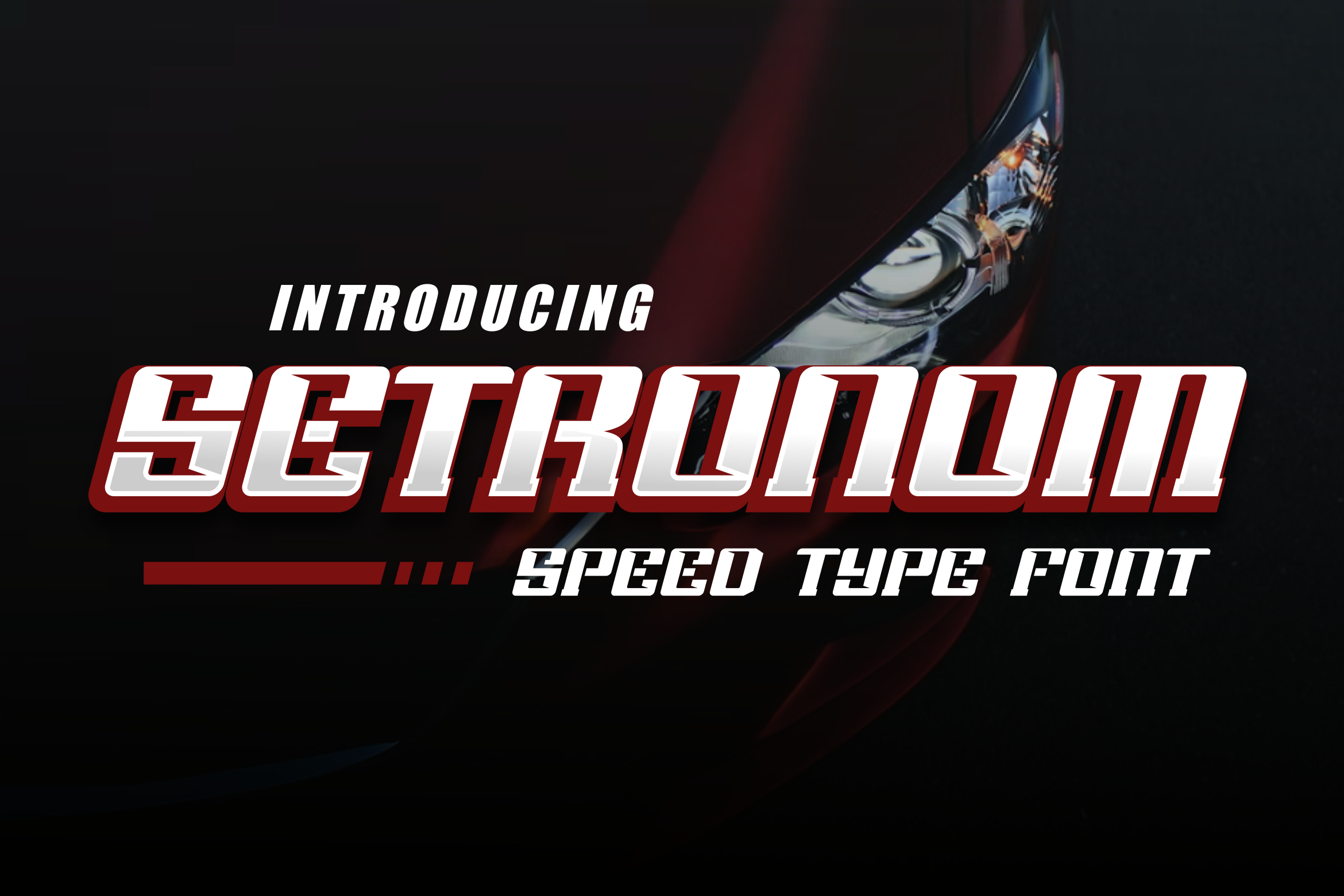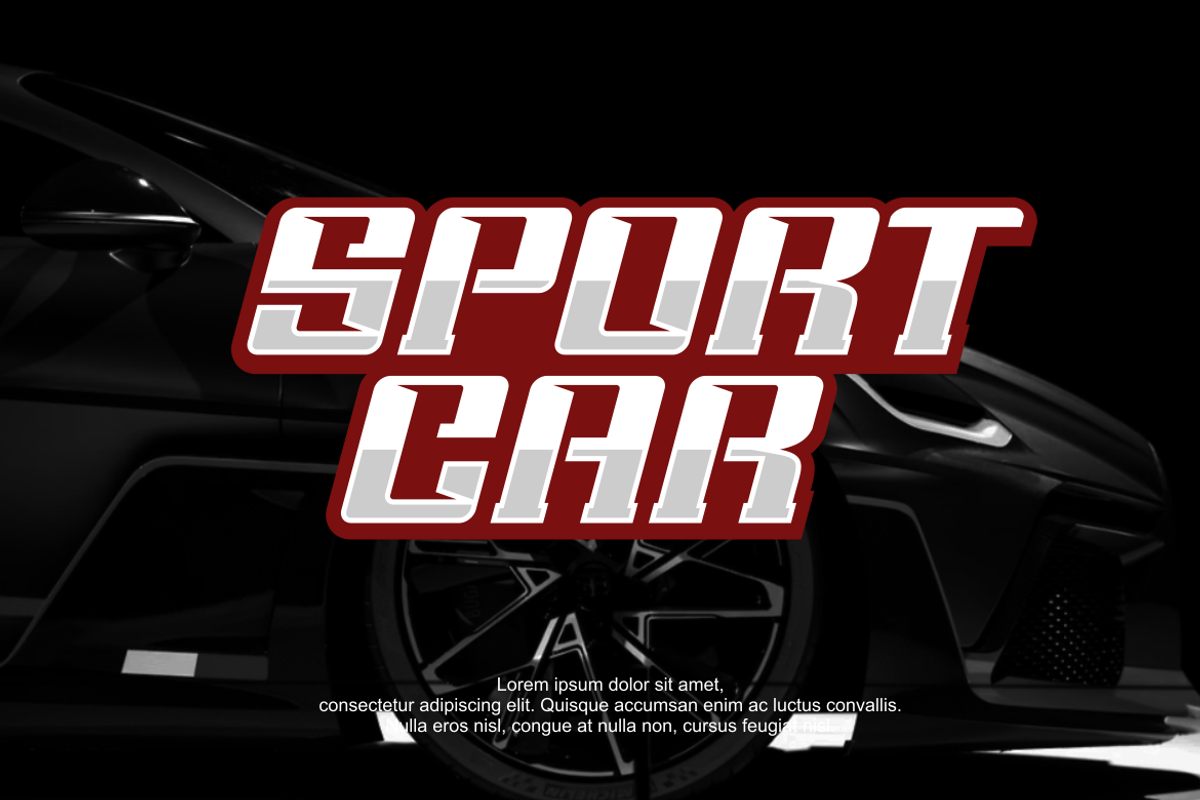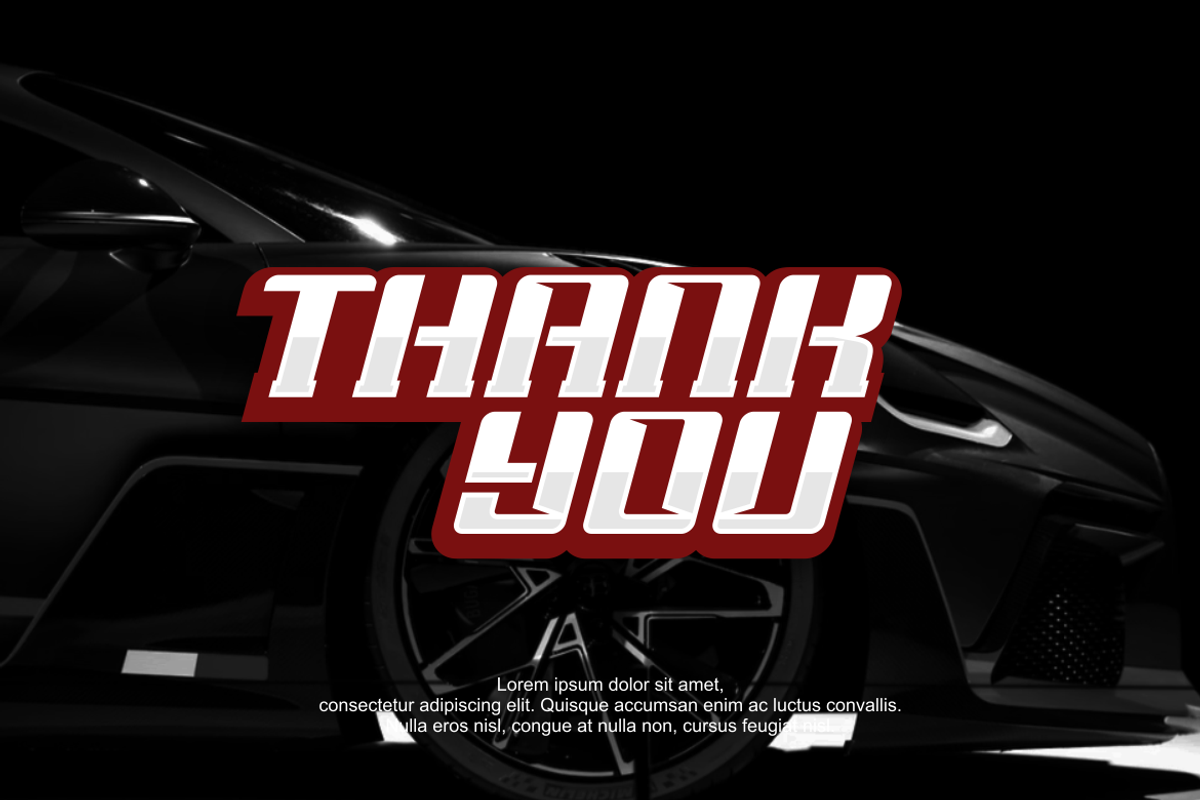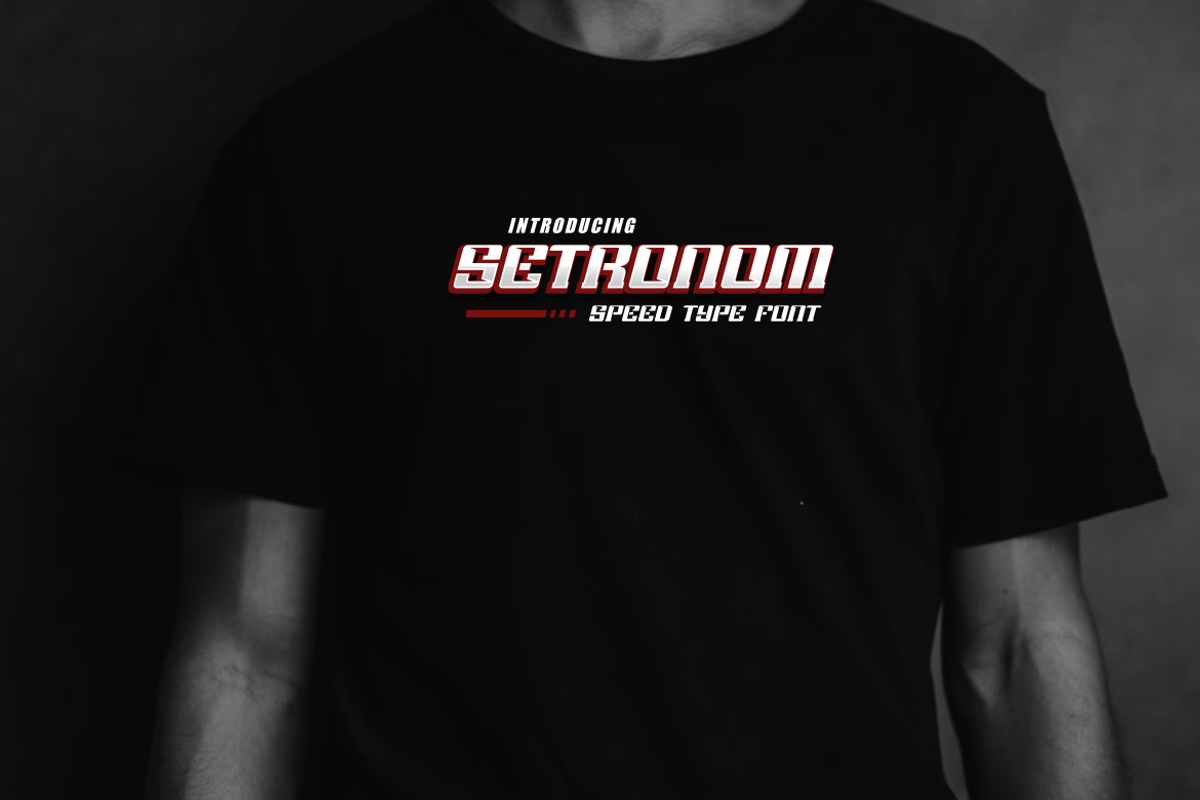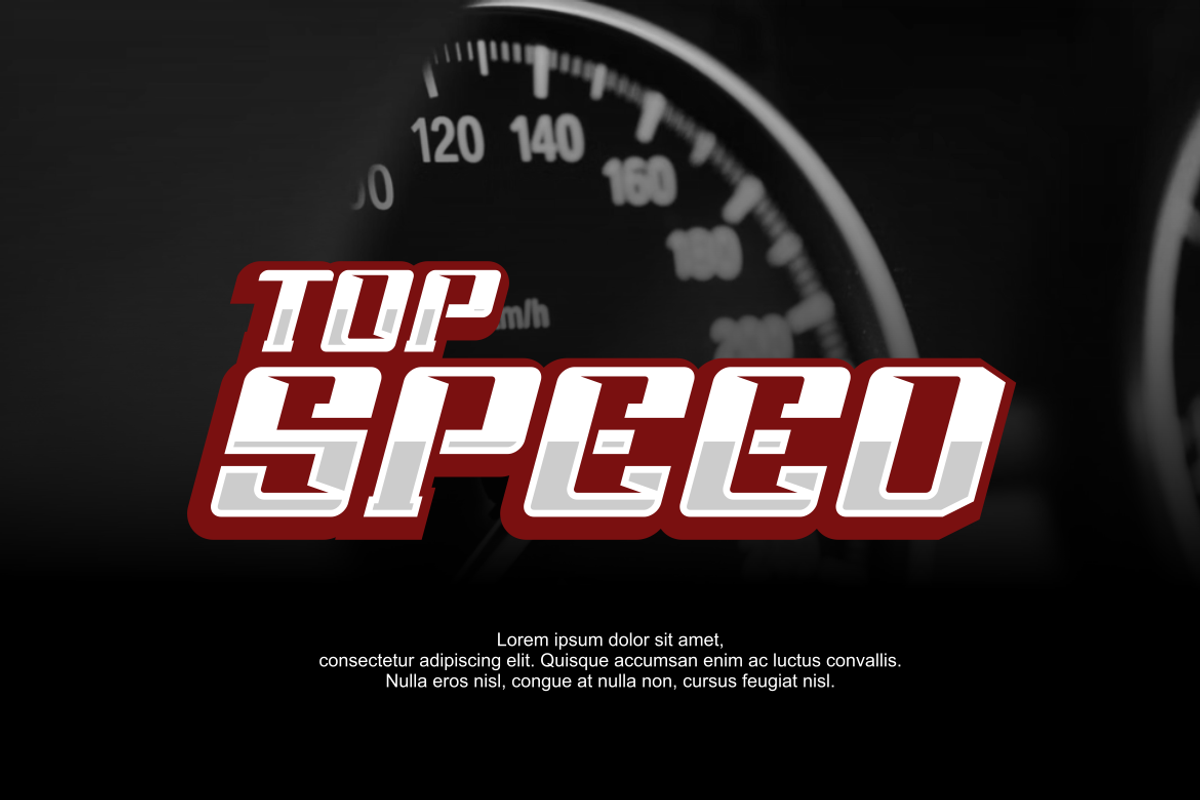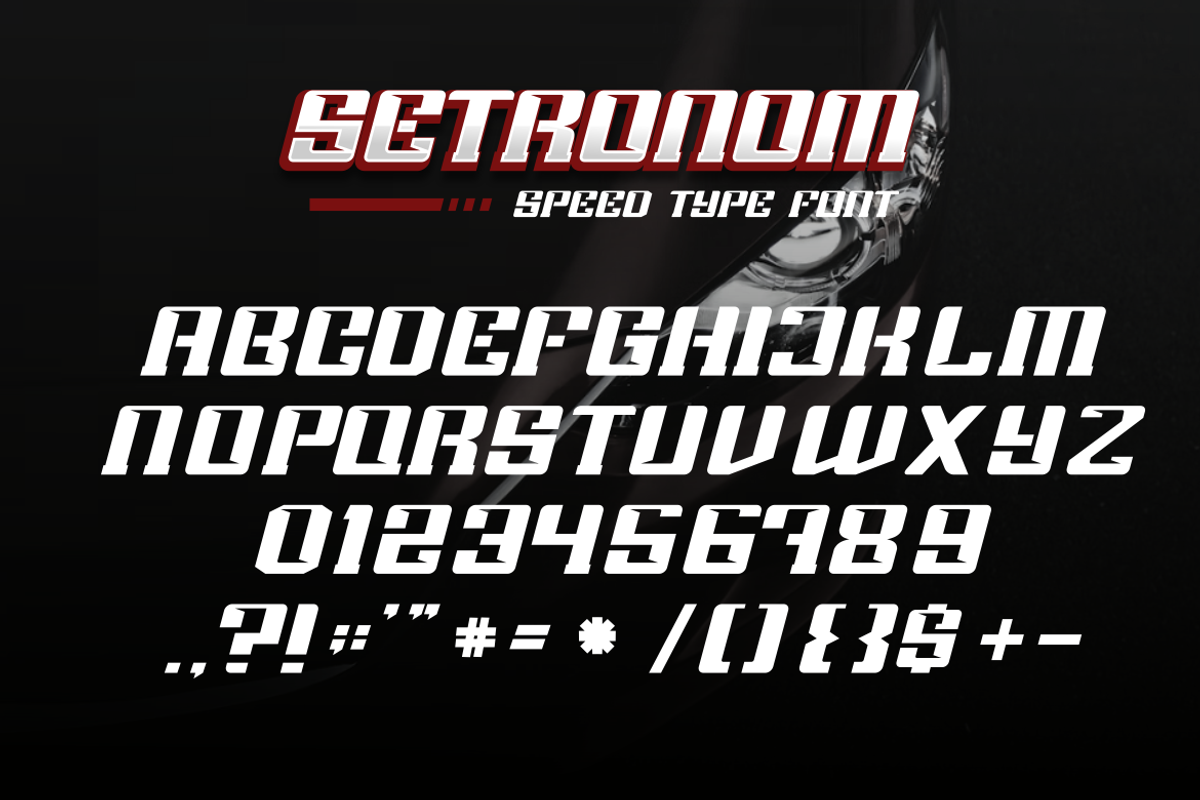
Setronom Font
Setronom Font - Modern Font is a bold and authentic display font. The font is suitable for any branding project like logo, esport, and many more. outstanding in a wide range of contexts.